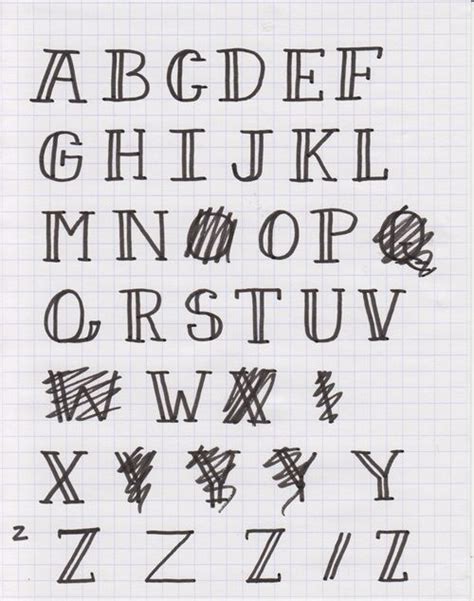
Fonts To Draw Easy. Web top 20 handwriting fonts myillutions handwriting font. Myillutions is a fascinating, stylish and unusual font.
Myillutions is a fascinating, stylish and unusual font. Web top 20 handwriting fonts myillutions handwriting font.
Myillutions is a fascinating, stylish and unusual font. Web top 20 handwriting fonts myillutions handwriting font. Myillutions is a fascinating, stylish and unusual font.